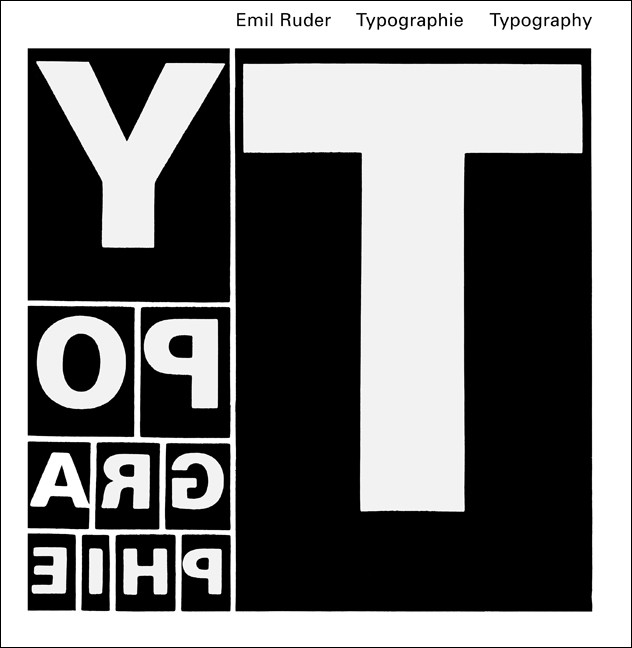
Typography: A Manual of Design
new edition of the original edition of 1967
Emil Ruder
This book is the legacy of Emil Ruder, one of the originator of Swiss Style, famous throughout the world for the use of asymmetric layouts, use of a grid, sans-serif typefaces and flush left, ragged right text. His holistic approach is still recognized as fundamental for graphic designers and typographers all over the world. This volume represents a critical reflection on his teaching and practice and a life- time of accumulated knowledge. Beyond that, it is a comprehensive masterpiece seen in its overall structure: in the themes presented, in the comparison of similarities and contrasts, in the richness of the illustrations and the harmoniously inserted types. Behind the purely pedagogic examples of exact proportions, a rich, philosophical thinking shines through. Today, more than forty years after this book was first published, it is still widely used and referenced. _ unabbreviated edition of the 1967 original edition _ masterpiece that is still one of the most important manuals in the field _ capturing Ruder’s ideas, methods and approaches _ carefully selected examples